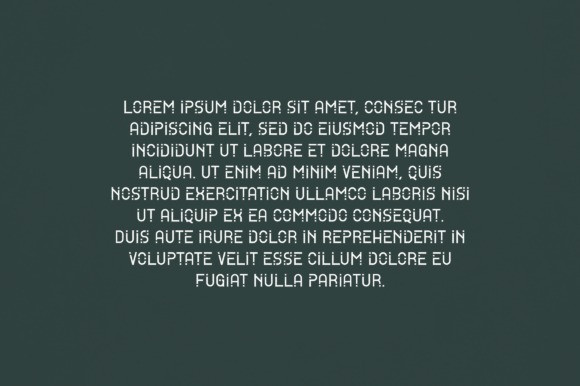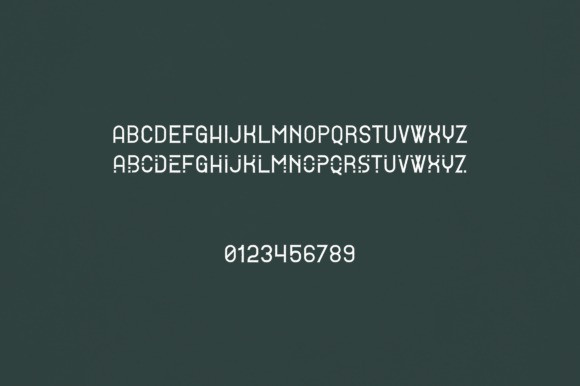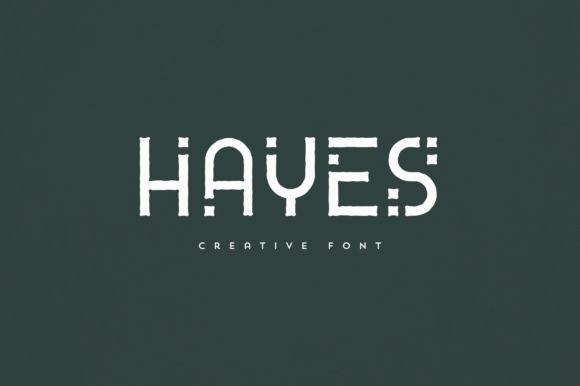
Hayes Font
Hayes Font is an elegant and versatile display font that will make your typography truly unique! It will enchant every logo, branding, headline, or plain text!